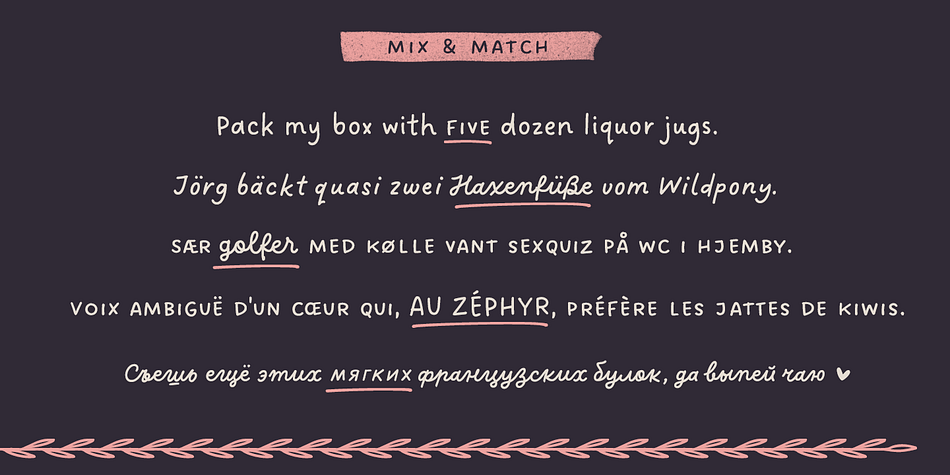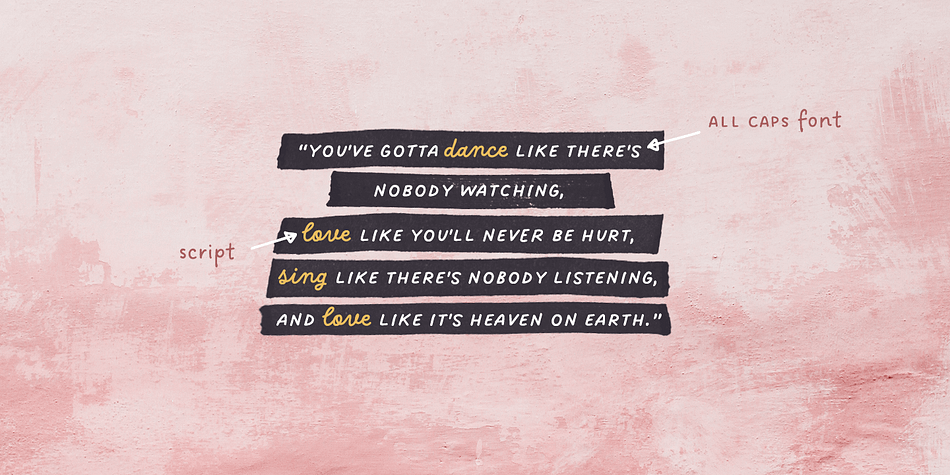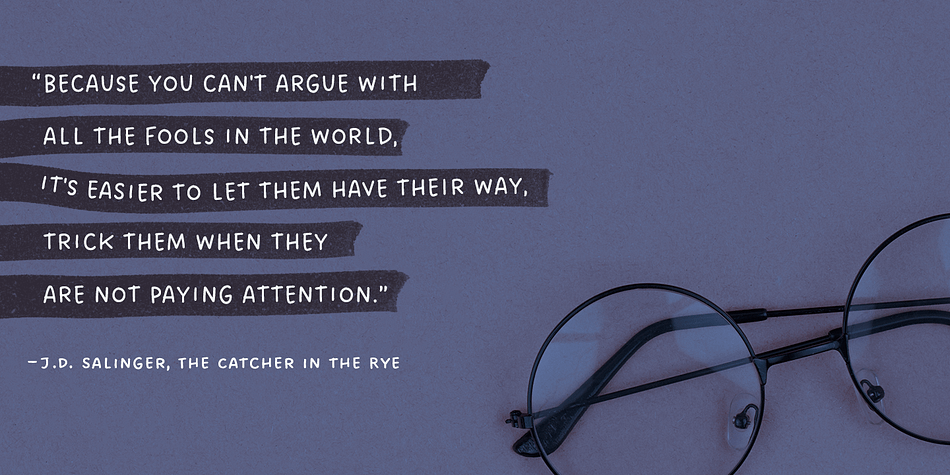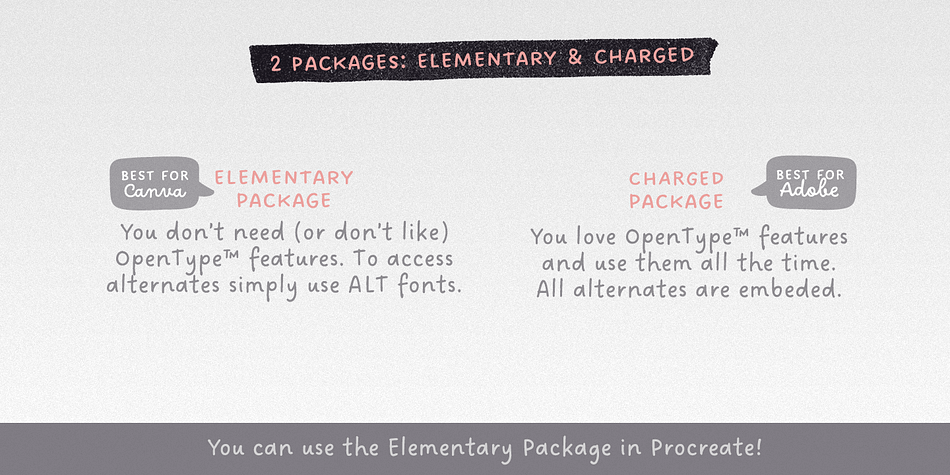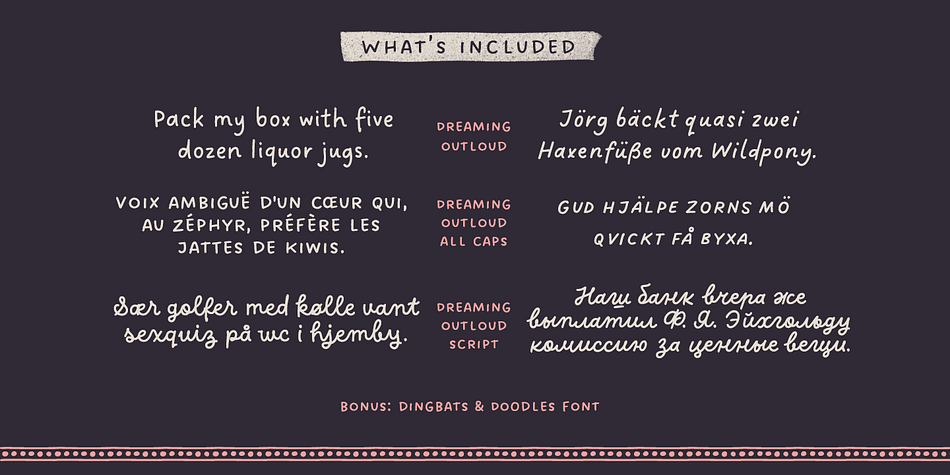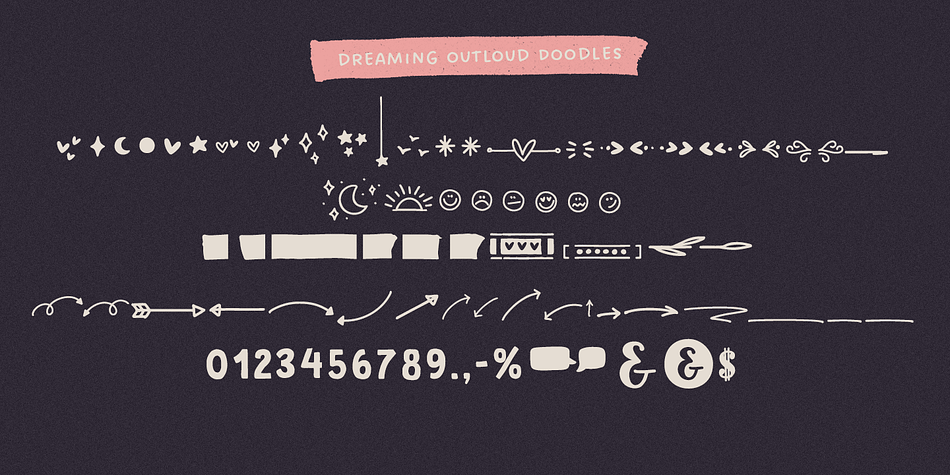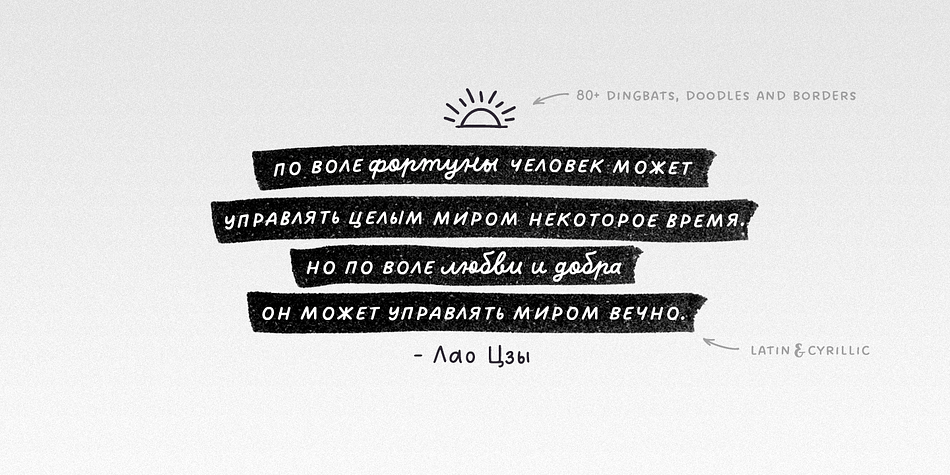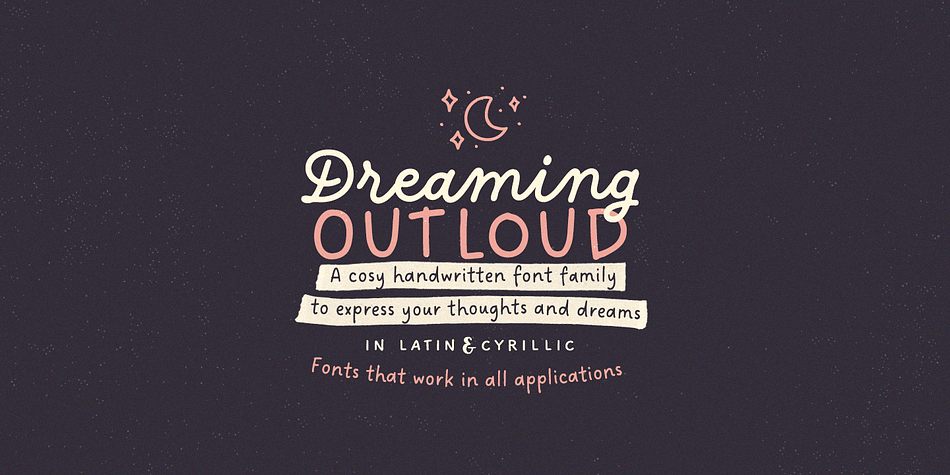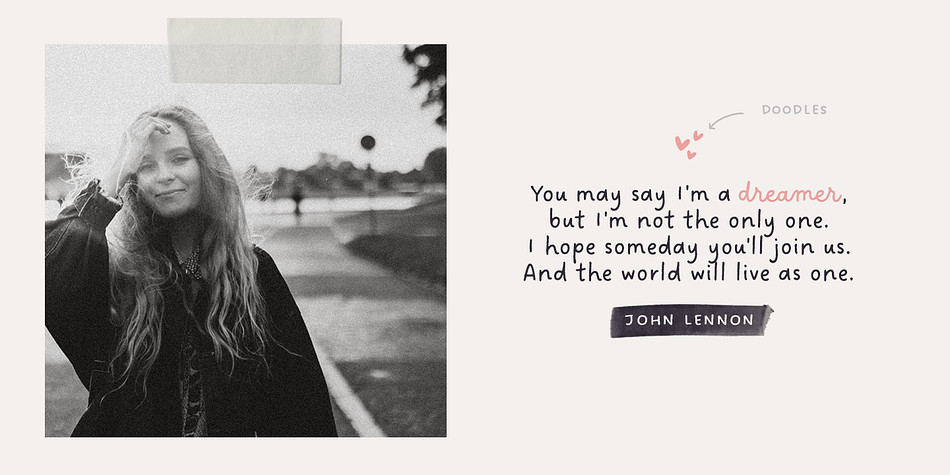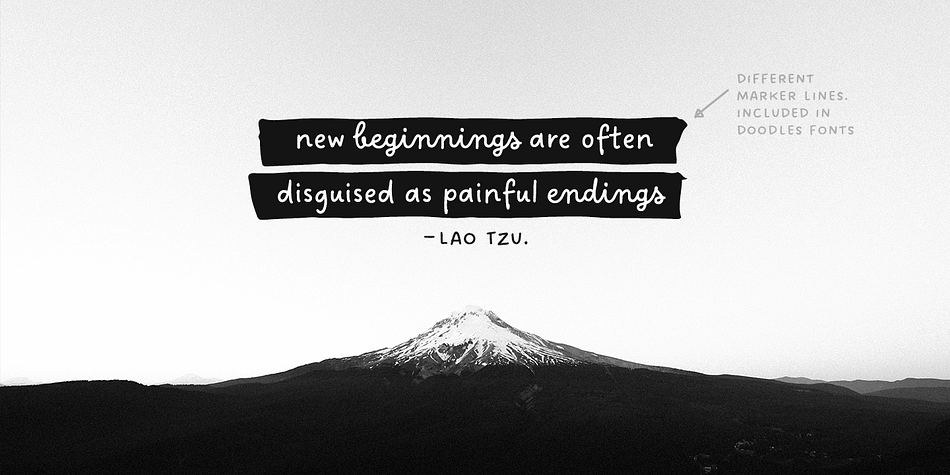
Designed by Elena Genova, Dreaming Outloud is a comic, hand drawn and dingbat font family. This typeface has sixteen styles and was published by My Creative Land.
Say hello to a casual handwritten font family - Dreaming OutLoud.
8 handwritten fonts - script, sans serif and doodles - made to complement each other in the best possible way. They are easy to use and perfect for expressing your thoughts, posting quotes and simple daily updates on social media, designing postcards or using on the web. The font package is complemented by more than a 100 transparent background marker lines (easy to change color!) - to emphasise what you are saying :) - and dingbats & doodles font. Christmas Doodles font also has handdrawn “fills” in .png and .psd included.